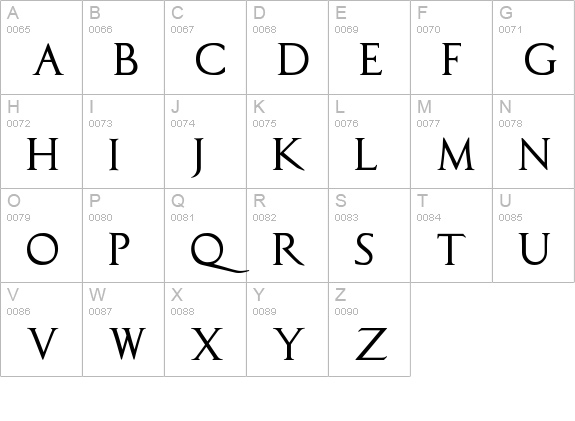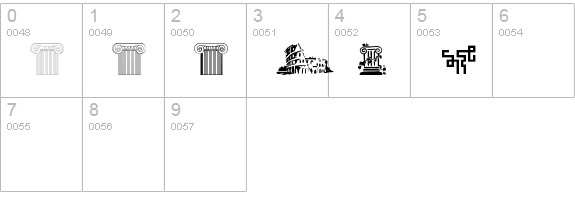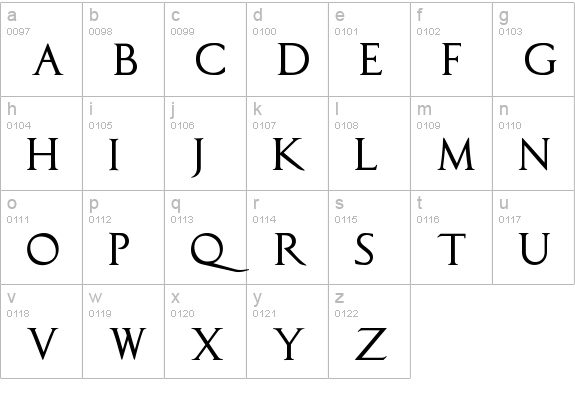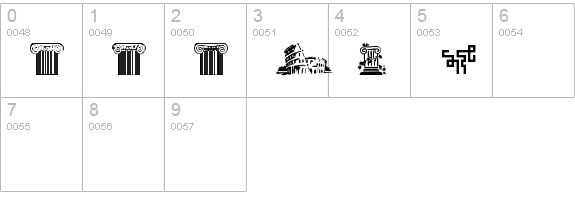
CapitalisTypOasisMedium Font Details
CapitalisTypOasisMedium is a stunning and versatile font that combines elegance with modernity. With its sleek lines and balanced proportions, this typeface is perfect for a wide range of design projects, from branding to editorial design. Its bold and distinctive characters make a statement while still maintaining readability. What sets CapitalisTypOasisMedium apart is not only its beautiful design, but also the fact that it is available for free download at FontsMarket.com. This means that you can easily access this high-quality font without any cost, making it a valuable addition to your font library. Whether you're a professional designer looking for a new go-to typeface or a hobbyist experimenting with typography, CapitalisTypOasisMedium is sure to elevate your designs with its unique style and flair. Download it today and see for yourself the impact it can have on your projects.